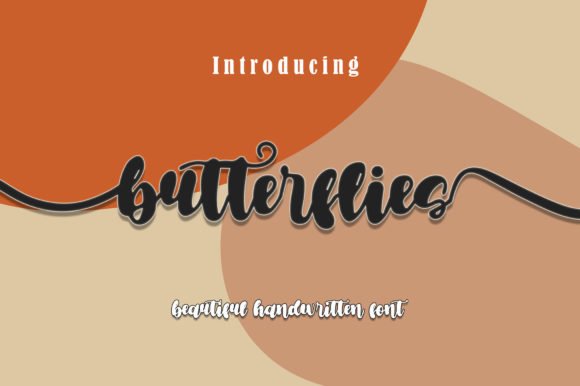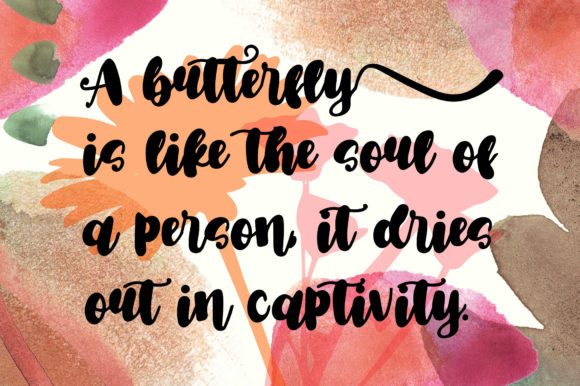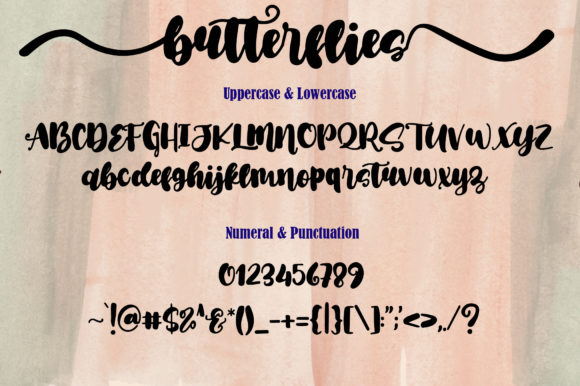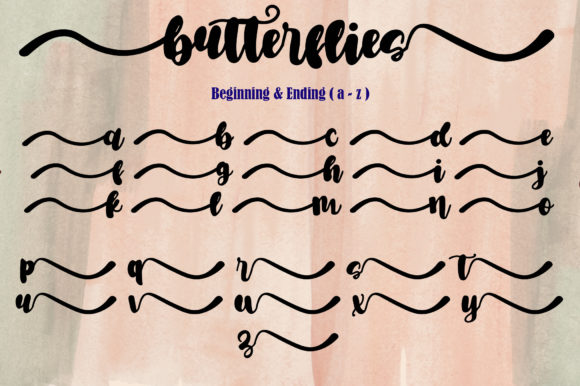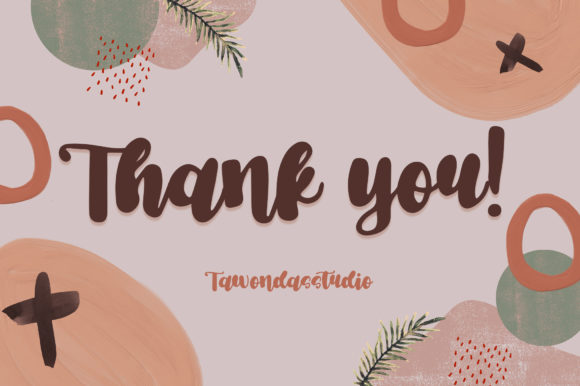
The Perfect Touch: Unlocking the Magic of Butterflies Font
Have you ever sat down at your desk, staring at a blank page or screen, struggling to bring your creative vision to life? You know the feeling – a mix of excitement and intimidation. That’s when you need a little inspiration to spark your imagination. For designers, the right font can be the missing piece that takes a project from good to great.
Enter Butterflies Font, a stunning script font that adds a touch of elegance and sophistication to any design. With its intricate details and delicate curves, this font is perfect for creating eye-catching graphics, beautiful typography, and stunning visual effects. Whether you’re working on a personal project or a commercial design, Butterflies Font is a valuable addition to your font library.
Butterflies Font Key Features
- Unique Characteristics: The Butterflies font features a unique blend of whimsical and elegant designs, making it ideal for creative projects and branding.
- Font Style and Variations: The font includes regular, bold, italic, and bold-italic variations, offering flexibility for different design needs.
Review: Butterflies Font
Overall, I think the Butterflies Font is a sweet and playful addition to any design project. ✨ It’s perfect for creating a whimsical and carefree atmosphere, making it ideal for children’s books, magazines, or social media campaigns.
Here are some things that I think work well:
- The font is highly customizable, with a wide range of color options and line styles to choose from.
- The script is elegant and flowing, making it perfect for creating a sense of movement and fluidity.
- The font is highly legible, even at small font sizes, making it a great choice for body text.
- The font may not be the best choice for formal or professional projects, as it can come across as too playful or juvenile.
- The script can be a bit too ornate for some designs, which may detract from the overall message or theme.
Overall, I think the Butterflies Font is a great choice for designers looking to add a touch of whimsy and playfulness to their projects. With some careful consideration of the limitations, it can be a truly beautiful and effective addition to any design.
The Butterflies font is ideal for creative projects, such as:
– Wedding invitations
– Baby shower invitations
– Children’s book illustrations
– Handmade greeting cards
– Stationery designs
Tips for getting the most out of the Butterflies font include:
– Experimenting with different font sizes and colors to achieve a whimsical effect
– Combining the font with illustrations or graphics to add visual interest
– Using the font in conjunction with other creative fonts to create a unique look